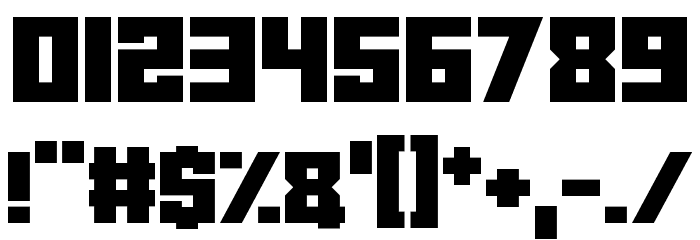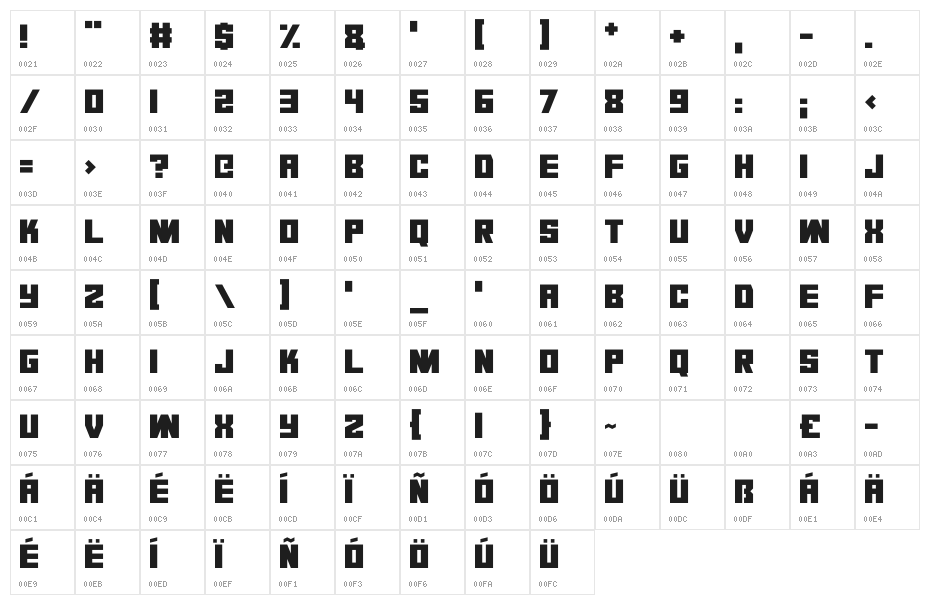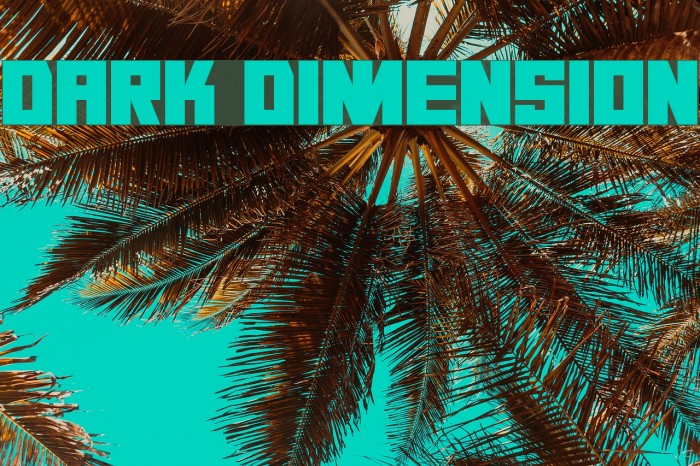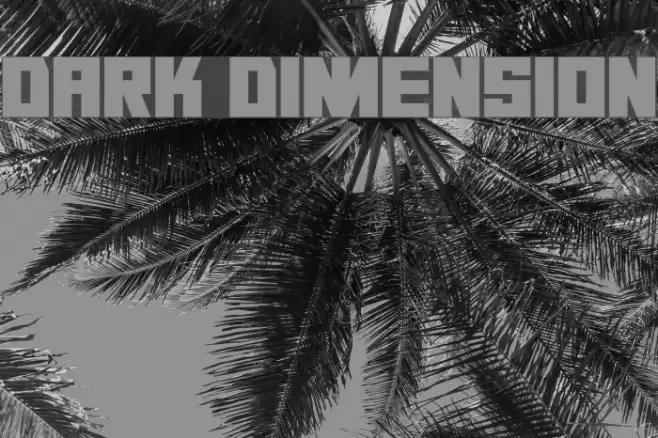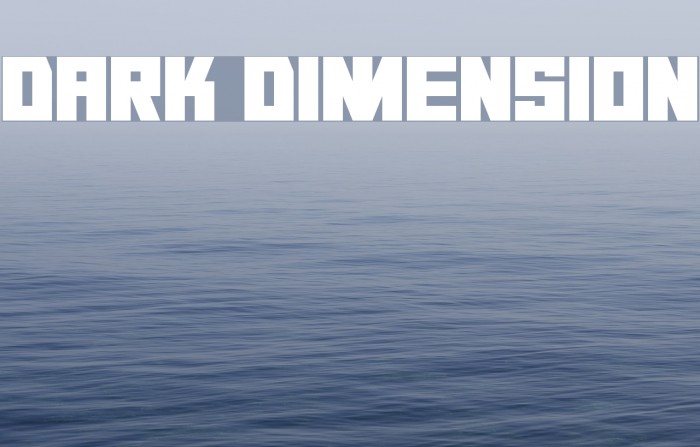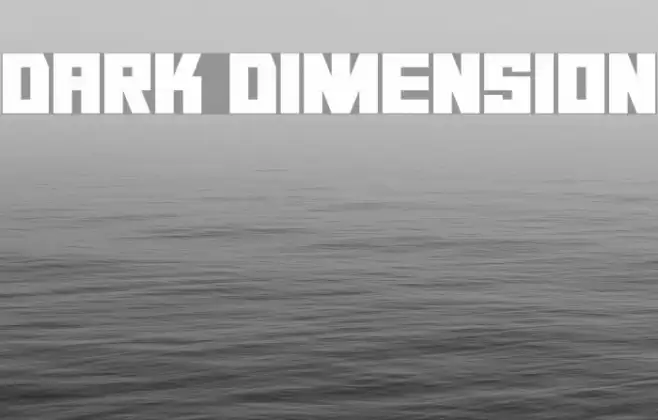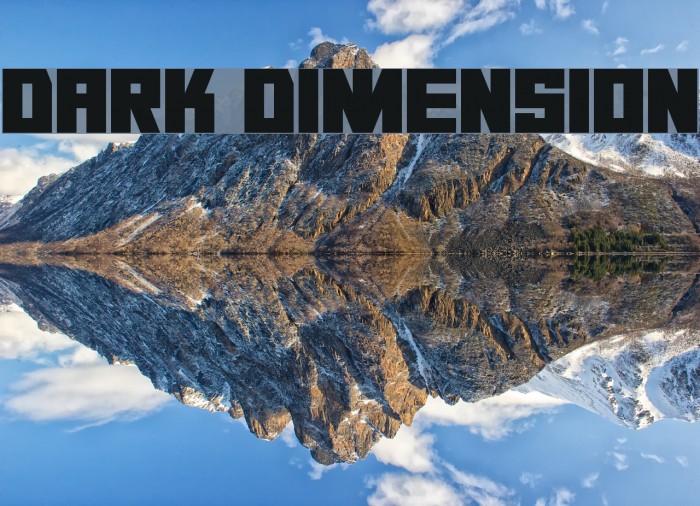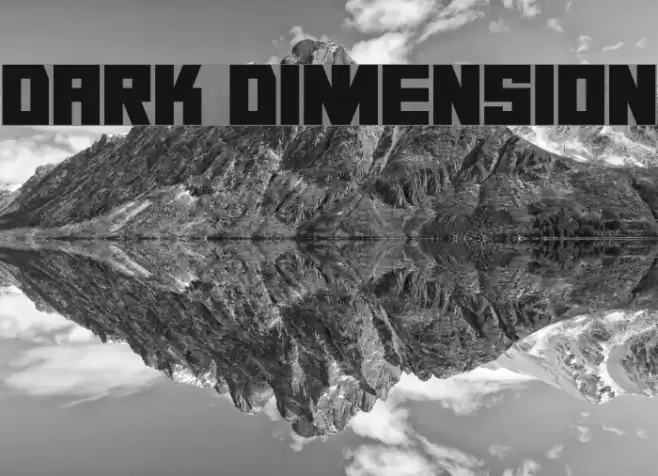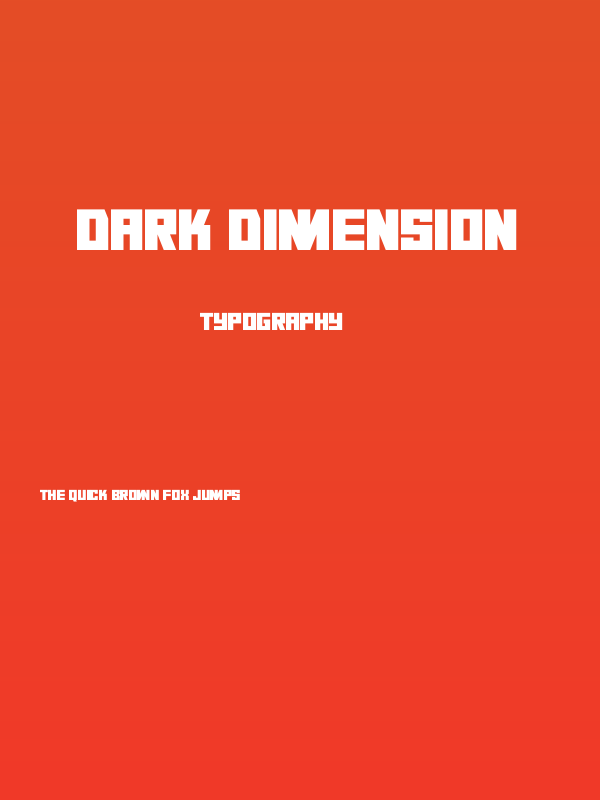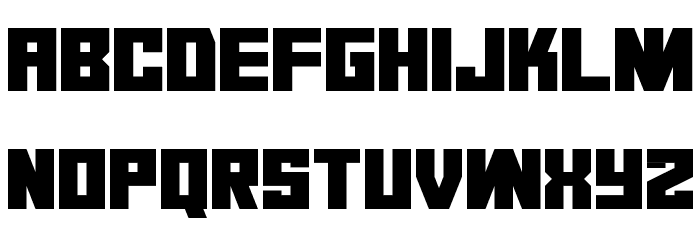
Dark Dimension Font
Dark Dimension Description
This font features a bold and blocky design with a strong geometric influence. Each character is constructed with thick, uniform strokes, creating a sense of solidity and impact. The angular edges and sharp corners give it a modern and edgy appearance, making it stand out in any design. The uppercase letters are particularly striking, with a uniform height and width that contribute to a cohesive look. The numbers and special characters maintain the same boldness and geometric style, ensuring consistency across all elements. This font is ideal for projects that require a strong visual presence and a contemporary feel.